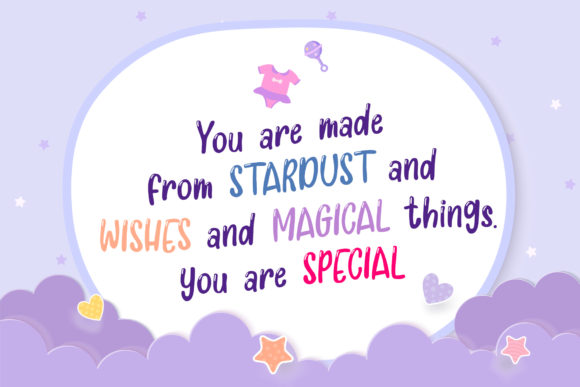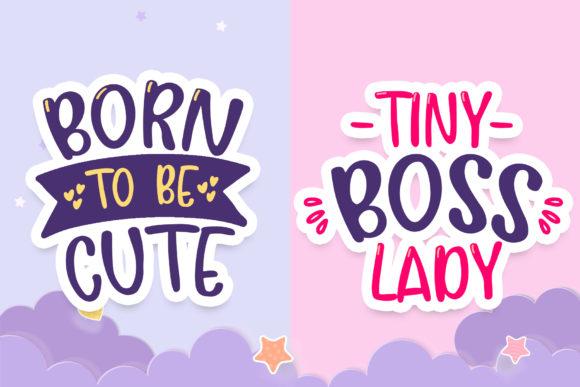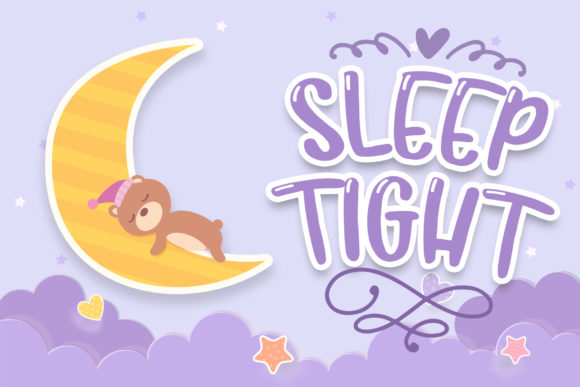
Introduction to Baby Smooch Font
Baby Smooch is a fun, playful and quirky display font.
This font will instantly brighten up each of your inspired ideas, so add it confidently and you will be astound by the outcome .
Key Features of Baby Smooch Font
Why Choose Baby Smooch Font?
Baby Smooch Font offers exceptional quality and versatility, making it a valuable addition to your design toolkit. Whether you’re creating for personal projects or commercial use, Baby Smooch Font delivers professional results.